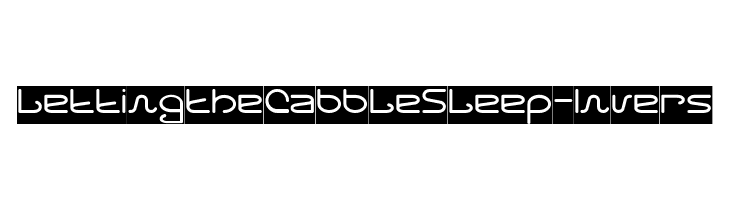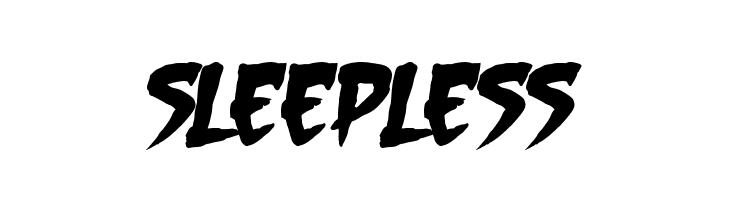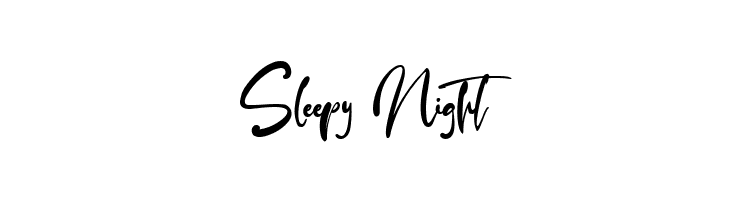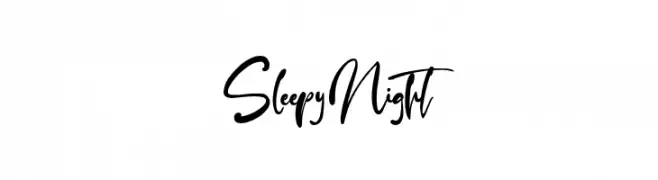
A bold, brush-style font with dynamic, hand-painted strokes.
A lively, cursive font with elegant curves and a hand-drawn appearance.
A graceful and flowing script font with a handwritten feel.
A bold, angular font with a modern, geometric style.
A playful, interconnected font with rounded edges and consistent line weight.
A futuristic, hollow font with smooth, continuous lines and a playful aesthetic.
A modern, playful font with smooth, continuous lines and a structured appearance.
A bold, italic font with interconnected, flowing characters and a modern aesthetic.
A modern, fluid font with geometric and playful elements.
A playful, bold font with rounded, interconnected strokes and a modern style.